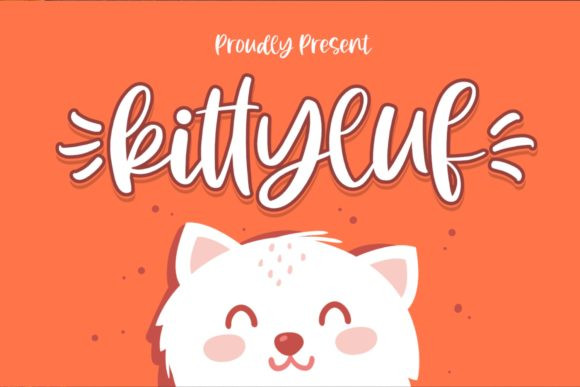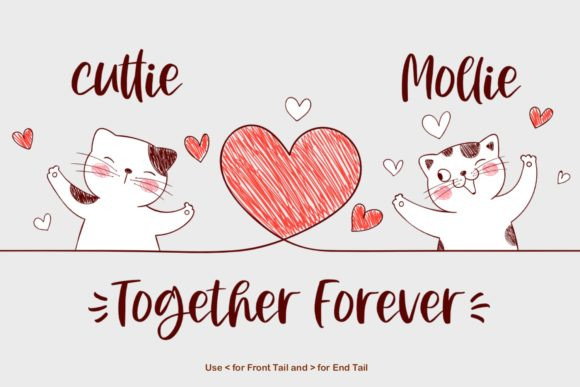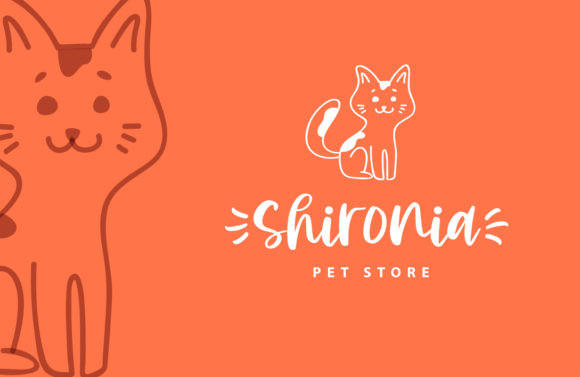
Kittyluf Font
Kittyluf is a cute and colorful handwritten font. It embodies playfulness and authenticity and is the perfect choice for any children activity or school project. Add this chunky lettered font to your designs and notice how it makes them come alive!